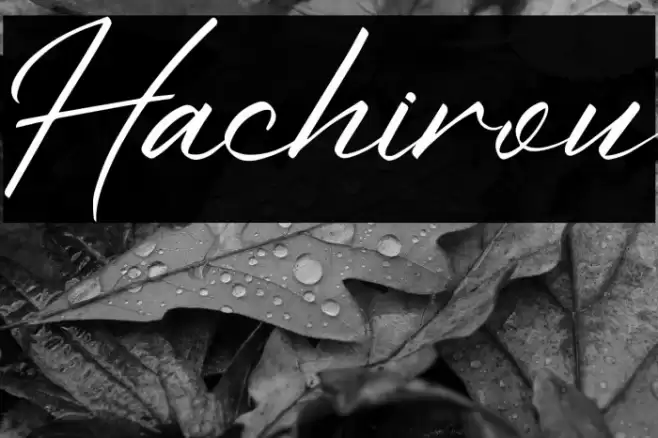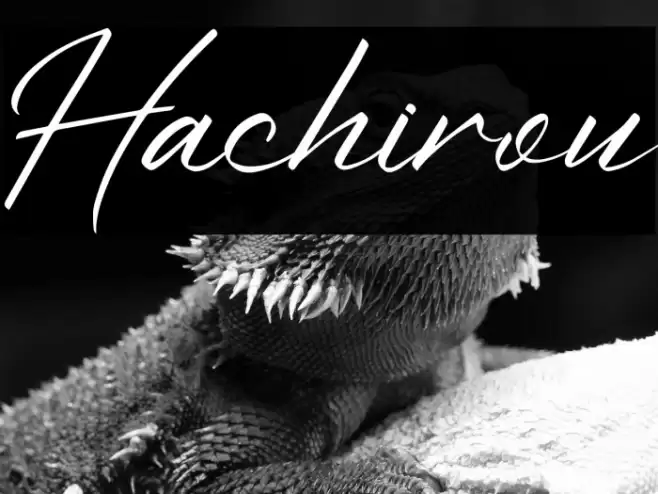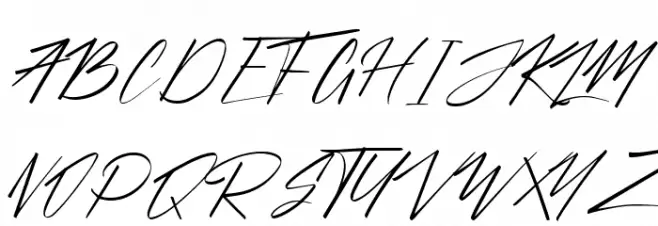
Hachirou Font
Hachirou Description
This font exudes a dynamic and expressive style, characterized by its fluid, cursive script that mimics natural handwriting. The letters are elegantly connected, with a slight slant that adds to its graceful appearance. The uppercase letters are bold and prominent, while the lowercase letters maintain a consistent flow, enhancing readability. The strokes vary in thickness, providing a medium contrast that adds depth and interest to the text. This font is versatile, suitable for projects that require a personal touch or a sense of elegance and sophistication.
A dynamic, cursive script font with medium contrast and elegant flow from Regular fonts.
- Proposed Projects: Ideal for wedding invitations, greeting cards, branding, and logo design.
- Overall Style: Elegant, Expressive
- Use Case: Logos, Invitations, Personal branding